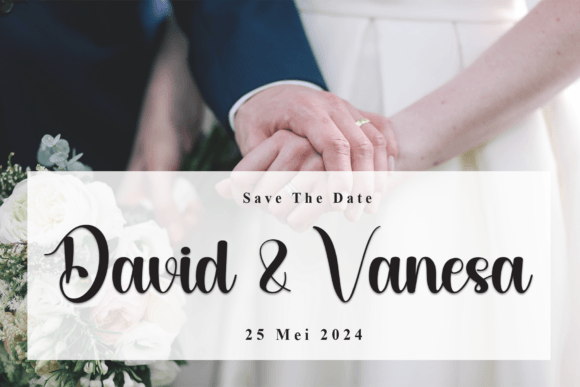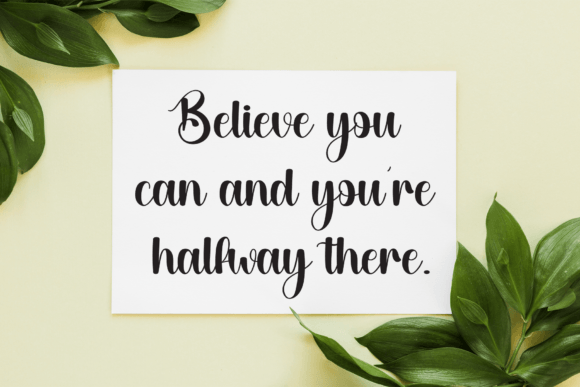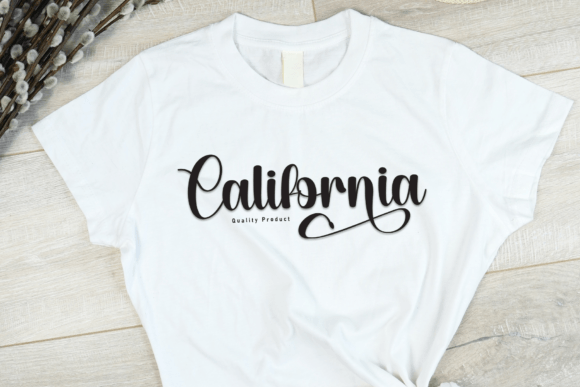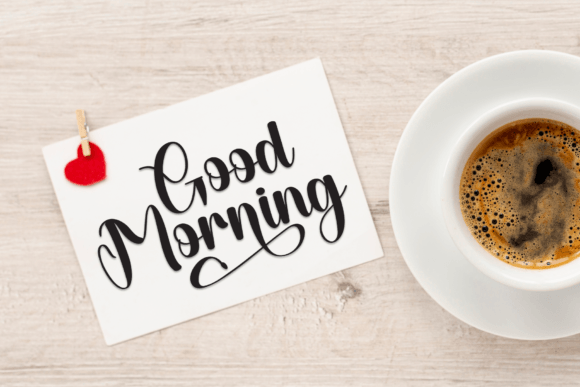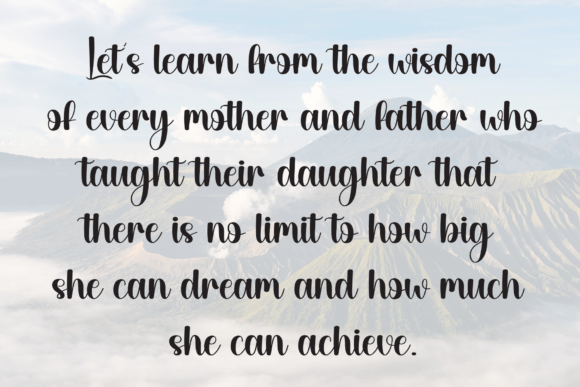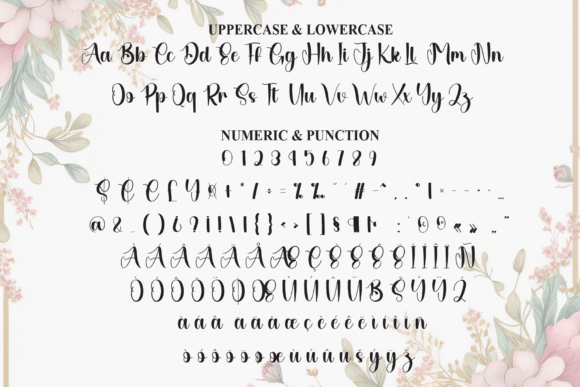
Astelia Font: The Charming Handwritten Font for Your Creative Projects
Are you looking for a font that can add a touch of warmth and friendliness to your designs? Look no further than Astelia Font, a charming handwritten font that exudes a sense of whimsy and playfulness. With its smooth, flowing strokes and playful curves, Astelia is the perfect choice for designers and crafters who want to create inviting and delightful projects.
The Characteristics of Astelia Font
Astelia Font is a unique and charming handwritten font that is designed to bring a sense of joy and friendliness to your designs. Its smooth, flowing strokes and playful curves make it perfect for a variety of creative projects, including invitations, packaging, and social media graphics. The font’s charming and whimsical feel makes it ideal for designers who want to add a personal touch to their work.
Uses of Astelia Font
Astelia Font is a versatile font that can be used for a wide range of creative projects. Here are some of the most popular uses of this charming font:
- Invitations: Astelia Font is perfect for creating beautiful and inviting invitations for weddings, birthday parties, and other special occasions.
- Packaging: The font’s playful and whimsical feel makes it ideal for packaging designs, such as labels, tags, and product packaging.
- Social Media Graphics: Astelia Font can be used to create eye-catching social media graphics, such as Facebook posts, Instagram stories, and Pinterest pins.
- Branding: The font’s unique and charming feel makes it perfect for branding projects, such as logos, business cards, and letterheads.
Why Choose Astelia Font?
There are many reasons why designers and crafters choose Astelia Font for their creative projects. Here are some of the top reasons:
- Unique and Charming: Astelia Font has a unique and charming feel that sets it apart from other fonts.
- Easy to Read: The font’s smooth, flowing strokes make it easy to read, even at small sizes.
- Versatile: Astelia Font can be used for a wide range of creative projects, from invitations to packaging to social media graphics.
- High-Quality: The font is designed to be high-quality and professional, making it perfect for commercial use.
Tips for Using Astelia Font
Here are some tips for using Astelia Font in your creative projects:
- Pair with Other Fonts: Astelia Font pairs well with other fonts, such as sans-serif fonts and script fonts.
- Use for Headings and Titles: The font’s playful and whimsical feel makes it perfect for headings and titles.
- Add a Personal Touch: Astelia Font can be used to add a personal touch to your designs, such as in invitations and packaging.
Astelia Font is a charming handwritten font that exudes warmth and friendliness. With its smooth, flowing strokes and playful curves, it brings a sense of whimsy to invitations, packaging, and social media graphics. Whether you’re a designer or crafter, Astelia Font is the perfect choice for adding a personal touch to your creative projects. So why not give it a try and see the difference it can make?
- What is Astelia Font? Astelia Font is a charming handwritten font that exudes warmth and friendliness.
- What is Astelia Font used for? Astelia Font can be used for a wide range of creative projects, including invitations, packaging, and social media graphics.
- Is Astelia Font easy to read? Yes, Astelia Font is easy to read, even at small sizes.